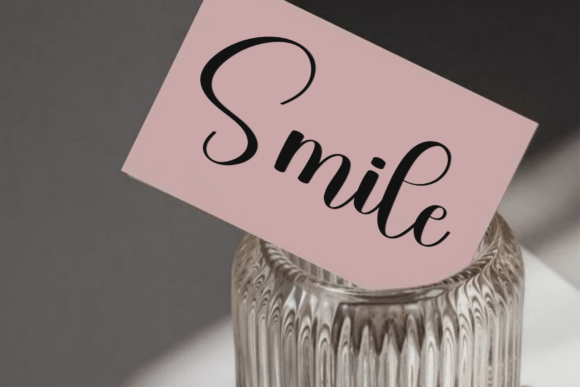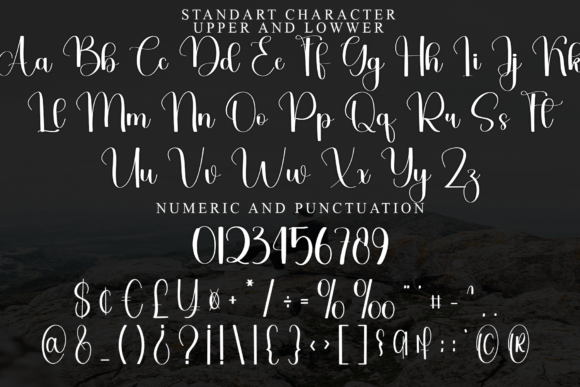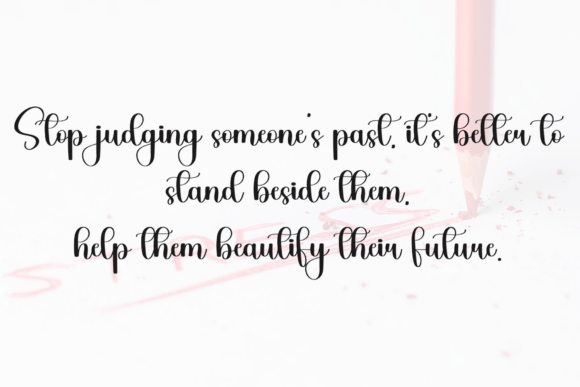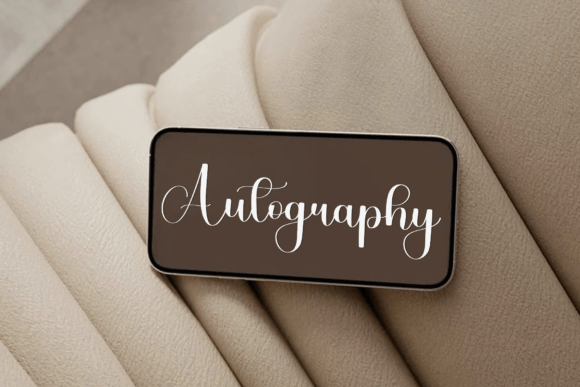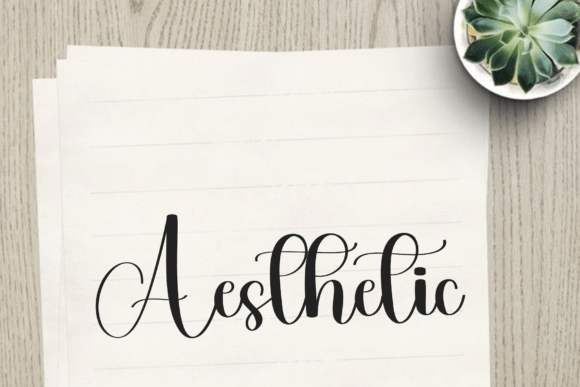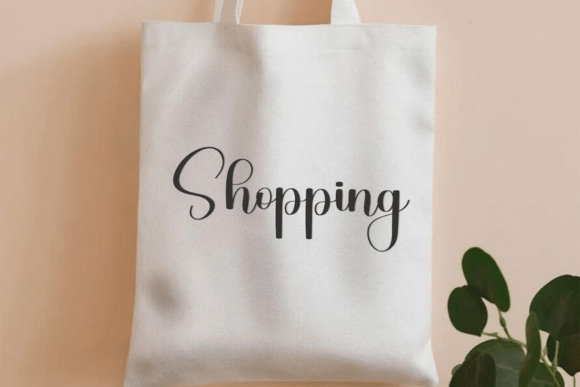
Christmas Bells Font: A Festive and Versatile Typeface for Designers and Crafters
Are you looking for a font that captures the essence of the holiday season? Look no further than the Christmas Bells Font, a beautiful and eye-catching typeface designed with a soft, unique touch. This stunning font is perfect for designers, crafters, and creative professionals who want to add a touch of festive flair to their projects.
A Unique and Distinctive Font
Christmas Bells Font is a one-of-a-kind typeface that stands out from the crowd. Its distinctive strokes give it a special character, making it meaningful and versatile for future use. The font’s soft and delicate design makes it perfect for a wide range of applications, from holiday-themed designs to everyday creative projects.
Key Features of Christmas Bells Font
- Unique and eye-catching design: Christmas Bells Font features a distinctive and stylish design that is sure to grab attention.
- Soft and delicate strokes: The font’s soft and delicate strokes give it a special character that sets it apart from other typefaces.
- Versatile and meaningful: Christmas Bells Font is designed to be versatile and meaningful, making it perfect for a wide range of creative projects.
- Various characters: The font features a range of characters, making it perfect for design projects, crafts, and other creative works.
Christmas Bells Font is perfect for designers, crafters, and creative professionals who want to add a touch of festive flair to their projects. The font’s unique and eye-catching design makes it perfect for a wide range of applications, including:
- Holiday-themed designs: Use Christmas Bells Font to create stunning holiday-themed designs, including Christmas cards, invitations, and decorations.
- Crafts and DIY projects: Add a touch of festive flair to your crafts and DIY projects, including handmade cards, gift tags, and decorations.
- Graphic design projects: Use Christmas Bells Font to add a touch of personality to your graphic design projects, including logos, brochures, and posters.
Benefits of Using Christmas Bells Font
There are many benefits to using Christmas Bells Font in your design projects and crafts. Some of the key benefits include:
- Unique and eye-catching designs: Christmas Bells Font allows you to create unique and eye-catching designs that are sure to grab attention.
- Increased creativity: The font’s distinctive strokes and soft design make it perfect for creative projects and crafts.
- Versatility: Christmas Bells Font is versatile and can be used in a wide range of applications, from holiday-themed designs to everyday creative projects.